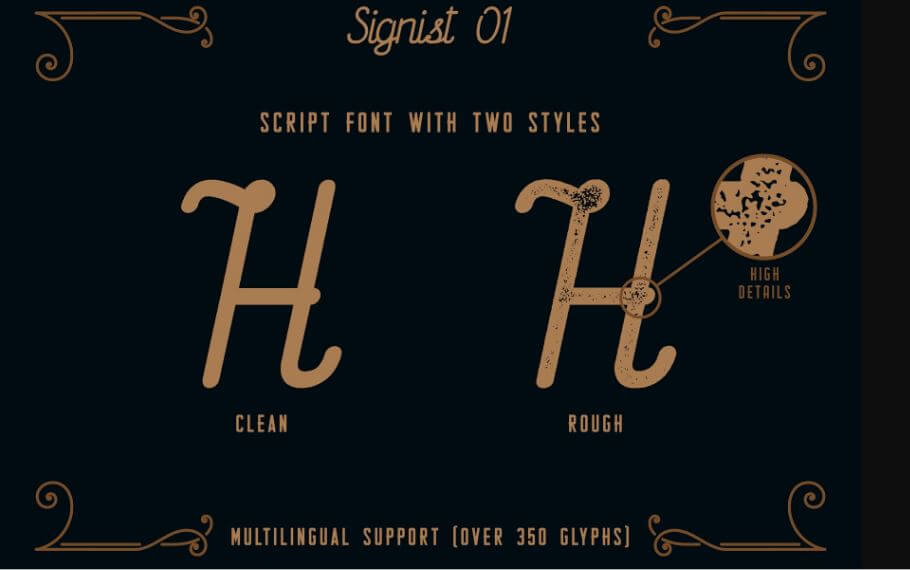
The Sign Writer Font
The sign writer font series is a display font set stimulated with the aid of antique typography used on signboards. Like a doorsy font, it is likely to be used in all tasks.
Style Of The Sign Writer Font Free